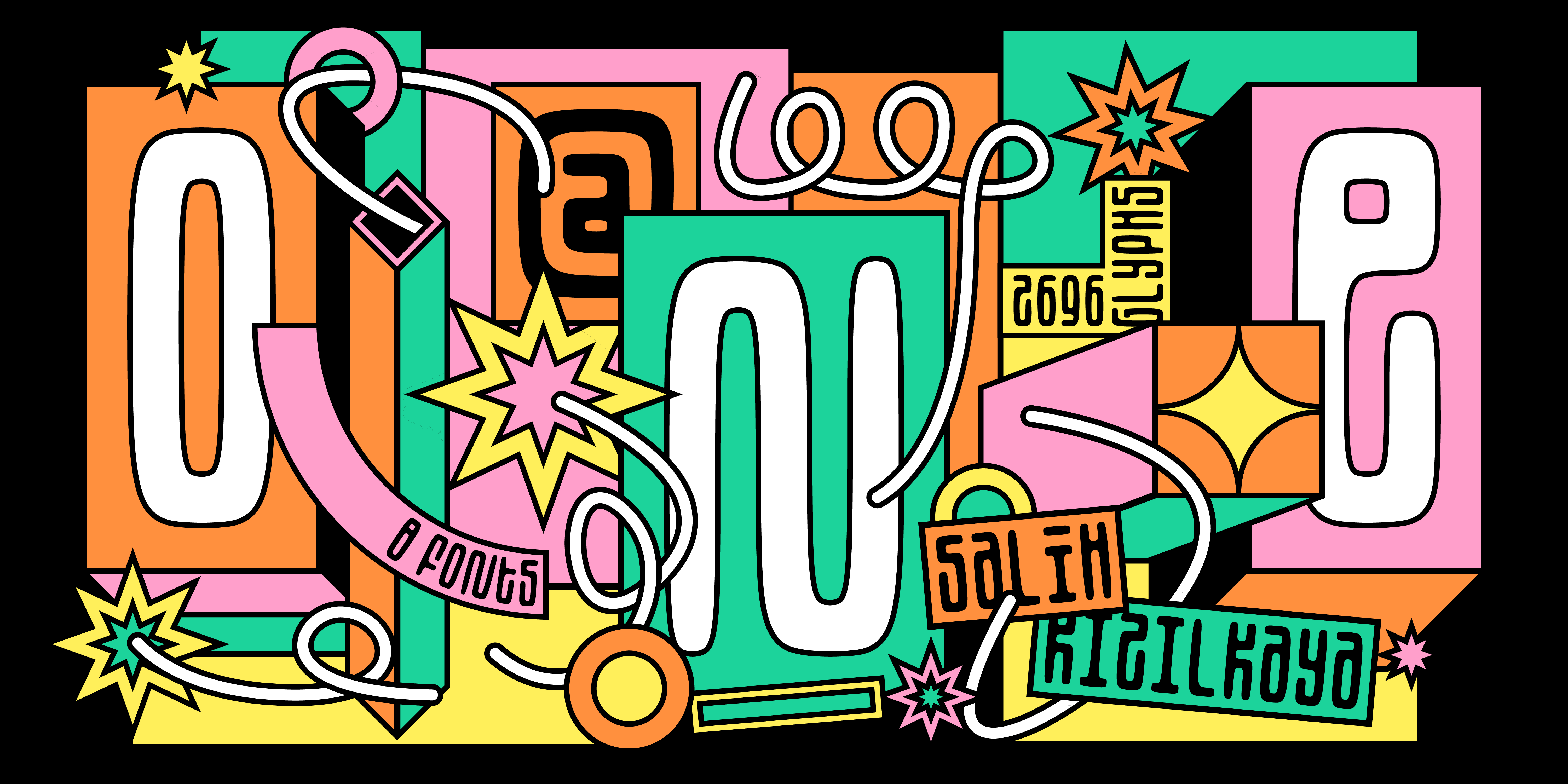
The SK One Block Font excels in various design applications including modern architectural firm branding, construction company identities, urban development marketing, solid engineering communications, block-based gaming interfaces, modular design project materials, structural building signage, contemporary real estate promotions, minimalist corporate identities, and geometric architectural projects that demand block precision and structural sophistication.
What makes the SK One Block Font exciting is its powerful embodiment of structural integrity and modern geometric design through letterforms that capture the essence of solid construction and the precision of modular building systems. This typeface demonstrates exceptional stability through carefully engineered characters that suggest the fundamental strength of building blocks, the precise alignment of architectural elements, and the systematic approach that defines quality construction and modern design. The font's block personality makes it perfect for construction companies and architectural firms seeking to communicate structural reliability, geometric precision, and the kind of solid foundation that supports ambitious building projects through typography that literally builds strength through block-based design.
The SK One Block Font family typically includes structural weight variations that enhance the block aesthetic, featuring bold geometric styling and extended character sets optimized for architectural communications and construction applications. These family options often include modular alternates, construction symbols, and geometric decorative elements that provide designers with comprehensive tools for creating authentically structural typography that celebrates building excellence while maintaining contemporary design appeal and architectural credibility.
Construction professionals and architectural organizations consistently choose SK One Block Font Free Download for projects requiring typography that communicates structural excellence and geometric precision. This typeface delivers exceptional performance in construction marketing, architectural branding, and development communications where establishing reliability and demonstrating building expertise is essential for project confidence. The font's block character makes it particularly effective for construction and modular design applications. Download SK One Block Font Free Download today to access this structural typeface that transforms architectural communications with its block precision and geometric sophistication, creating compelling construction experiences that demonstrate the highest standards of building excellence while maintaining the solid reliability that defines truly foundational architectural design and structural engineering.